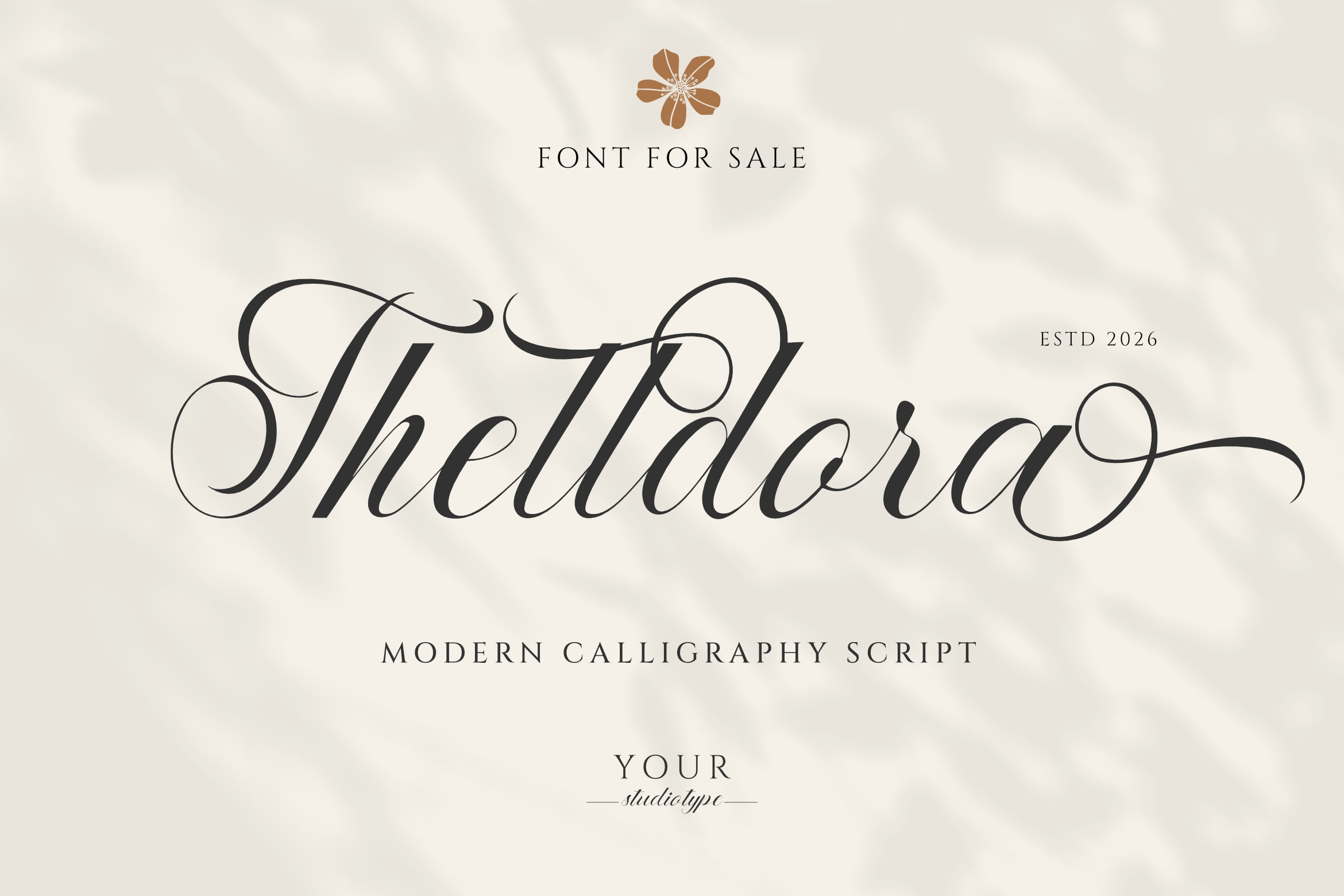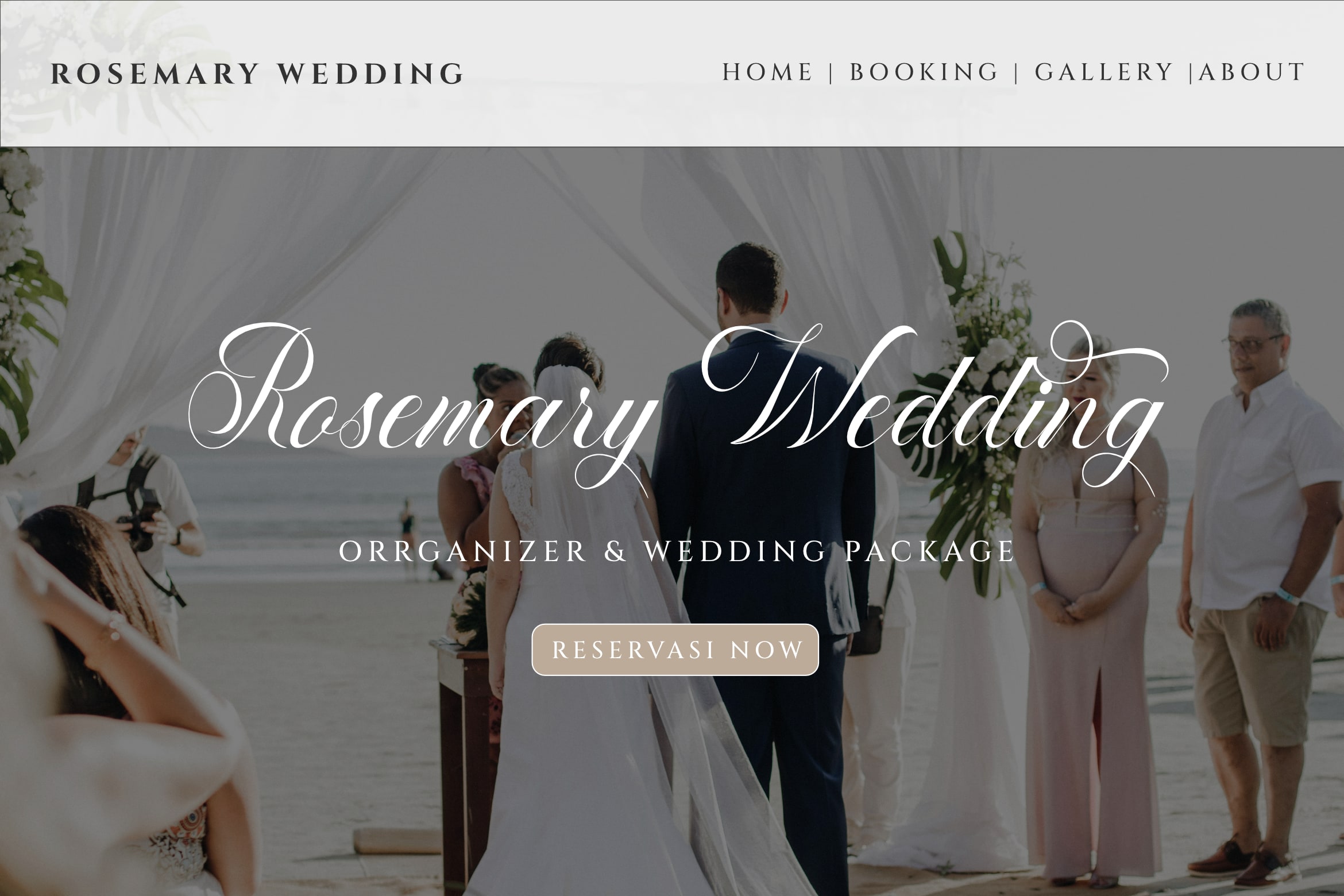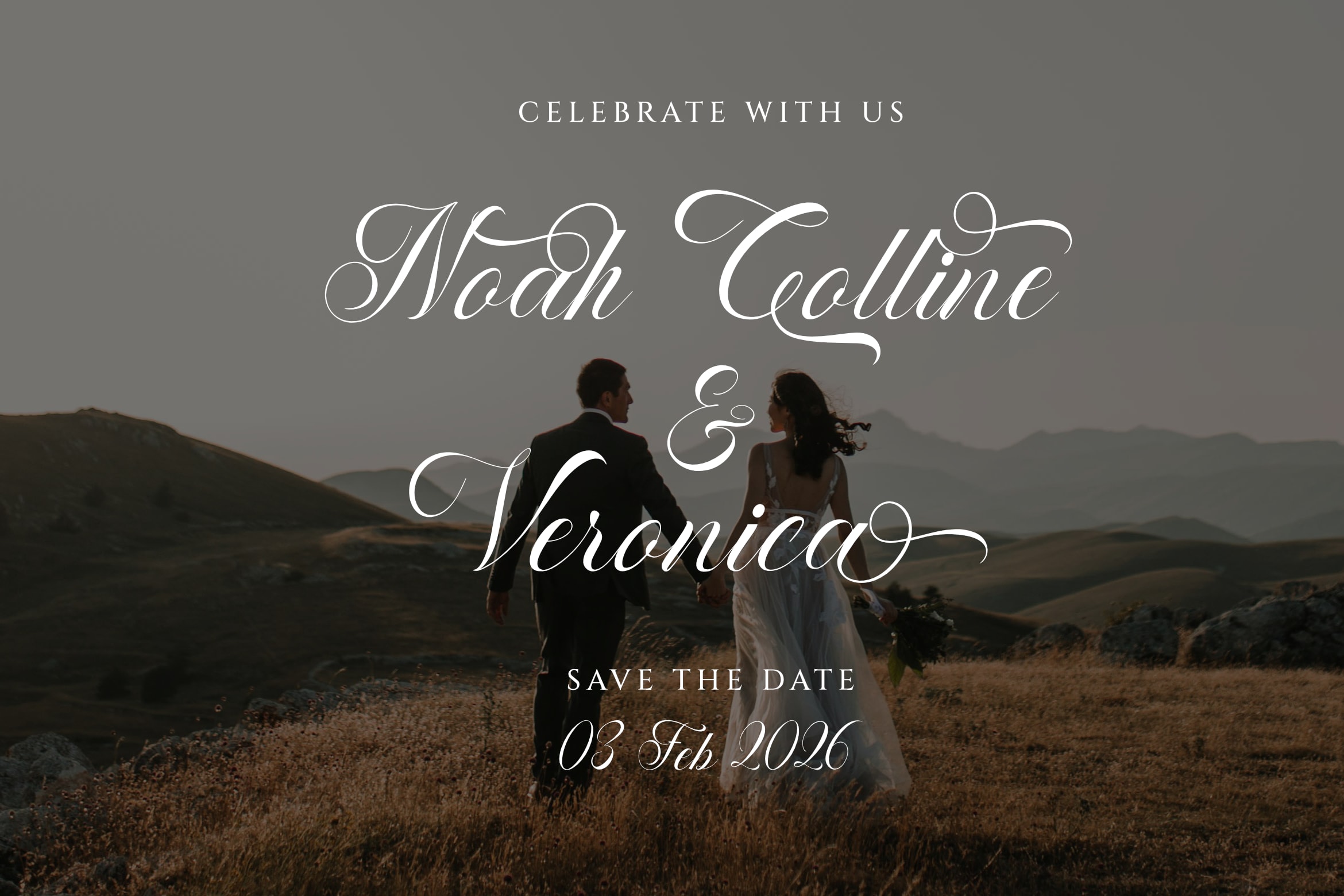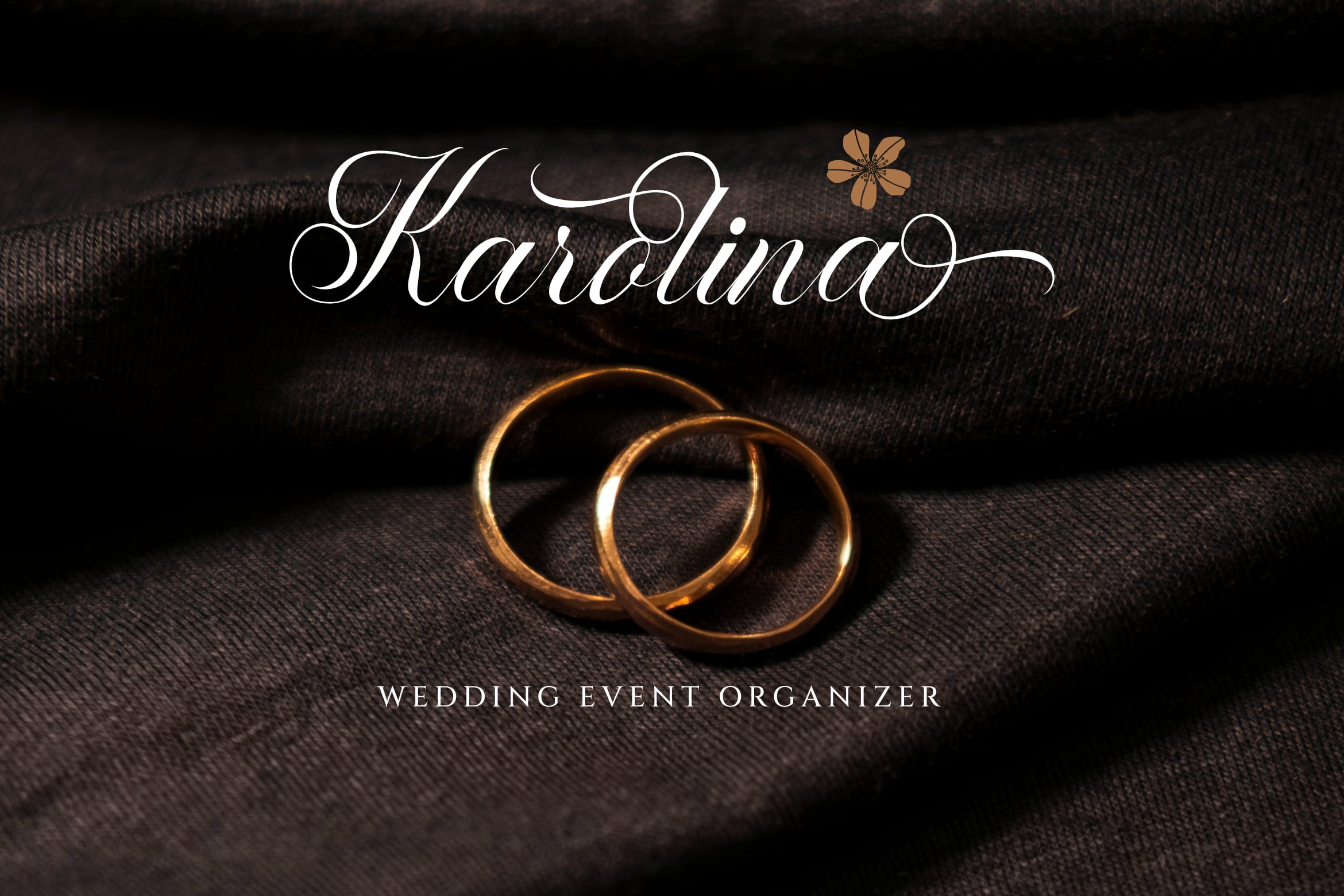
Ideal for wedding invitations, luxury logos, fashion branding, beauty products, signature designs, social media graphics, packaging, and editorial layouts, Thettara brings together refinement and creativity in a single typeface. Its dramatic flourishes and stylish character help create eye-catching typography while maintaining excellent readability.